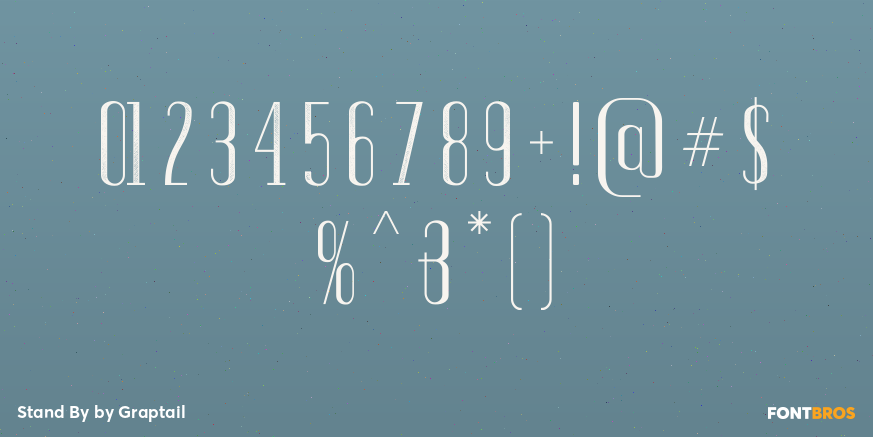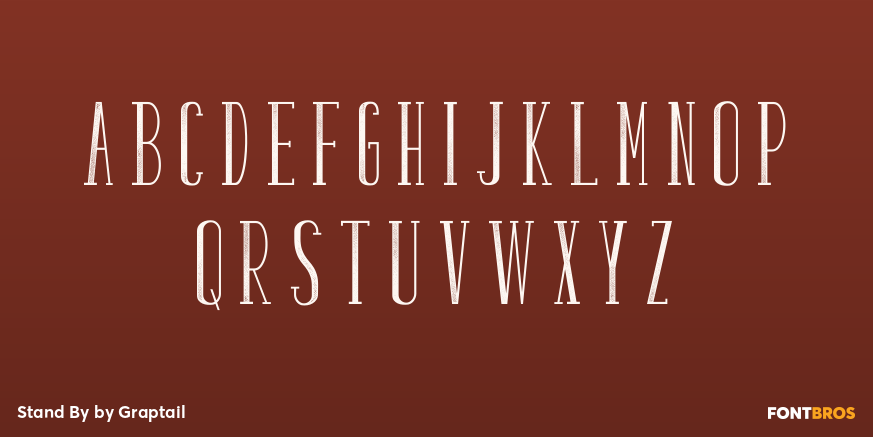
Stand By
Font Family by Graptail
Stand By is a condensed slab display typeface. It's strong appearance will be useful when creating commanding titles and headlines that demand attention. Stand By is a slightly condensed face, but has the thickness to provide all the stability you need.
Stand By Slab
Stand By Slab Inline
Stand By Slab Grunge
Stand By Regular
Stand By Inline
Stand By Grunge